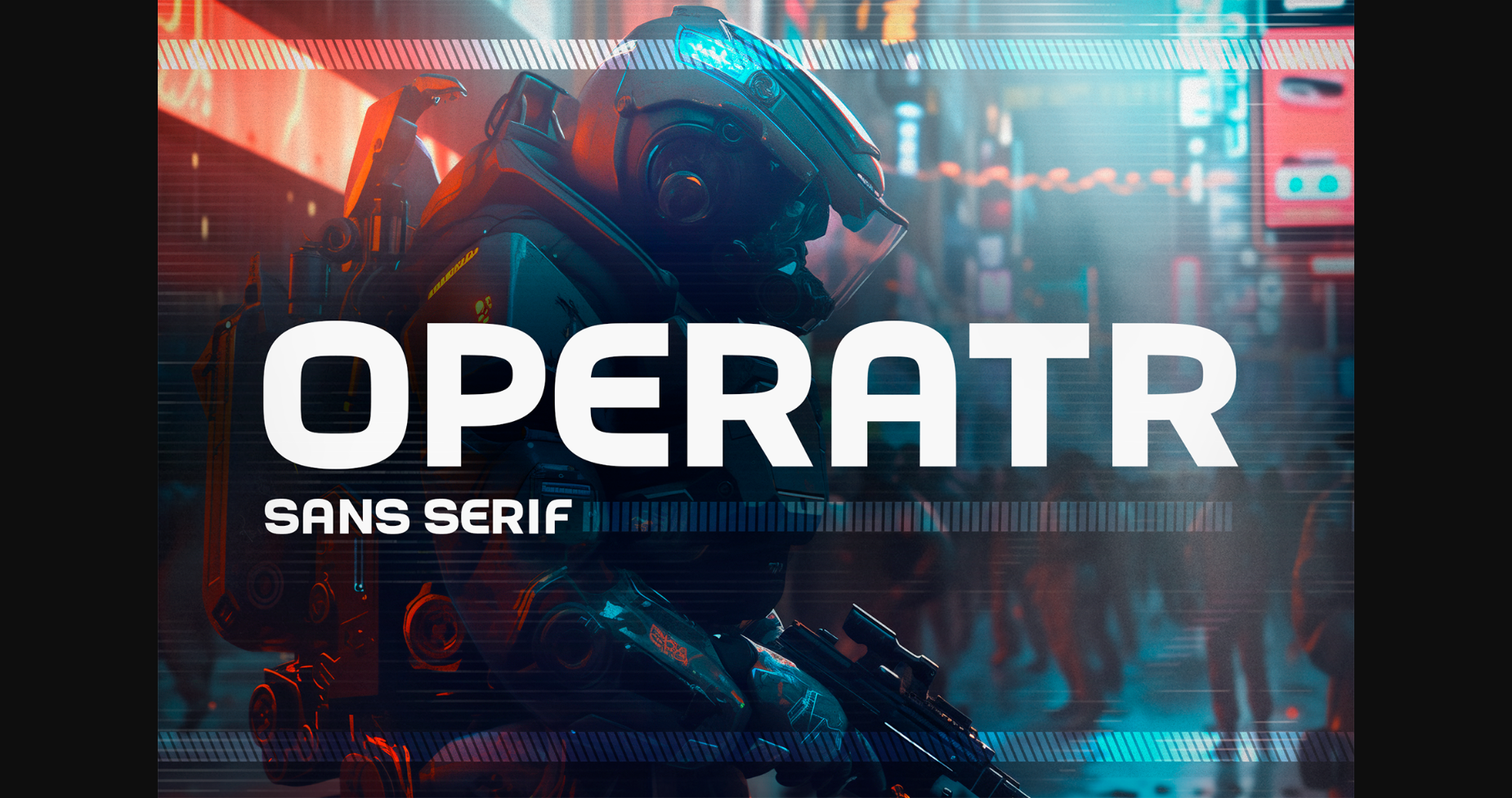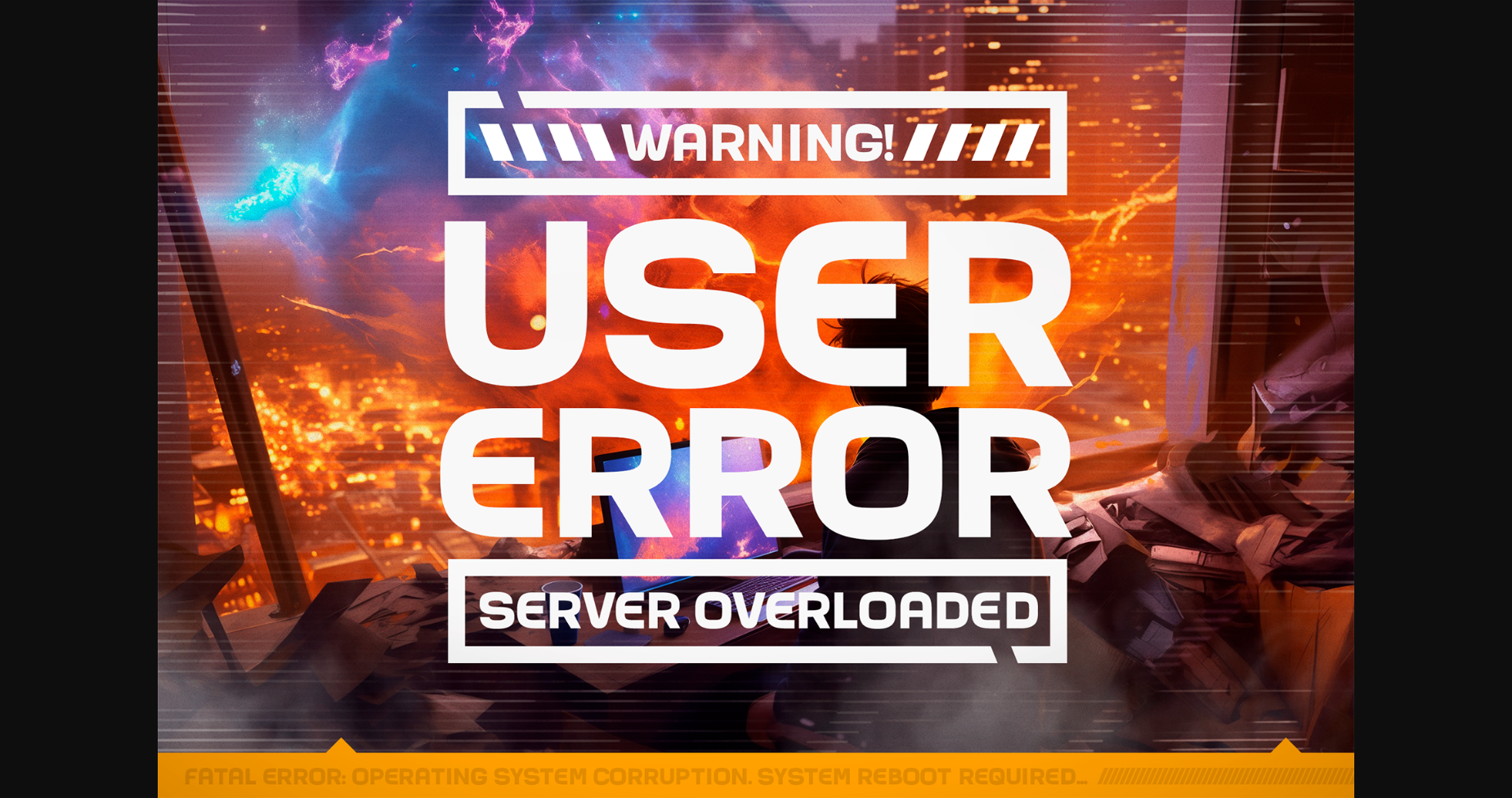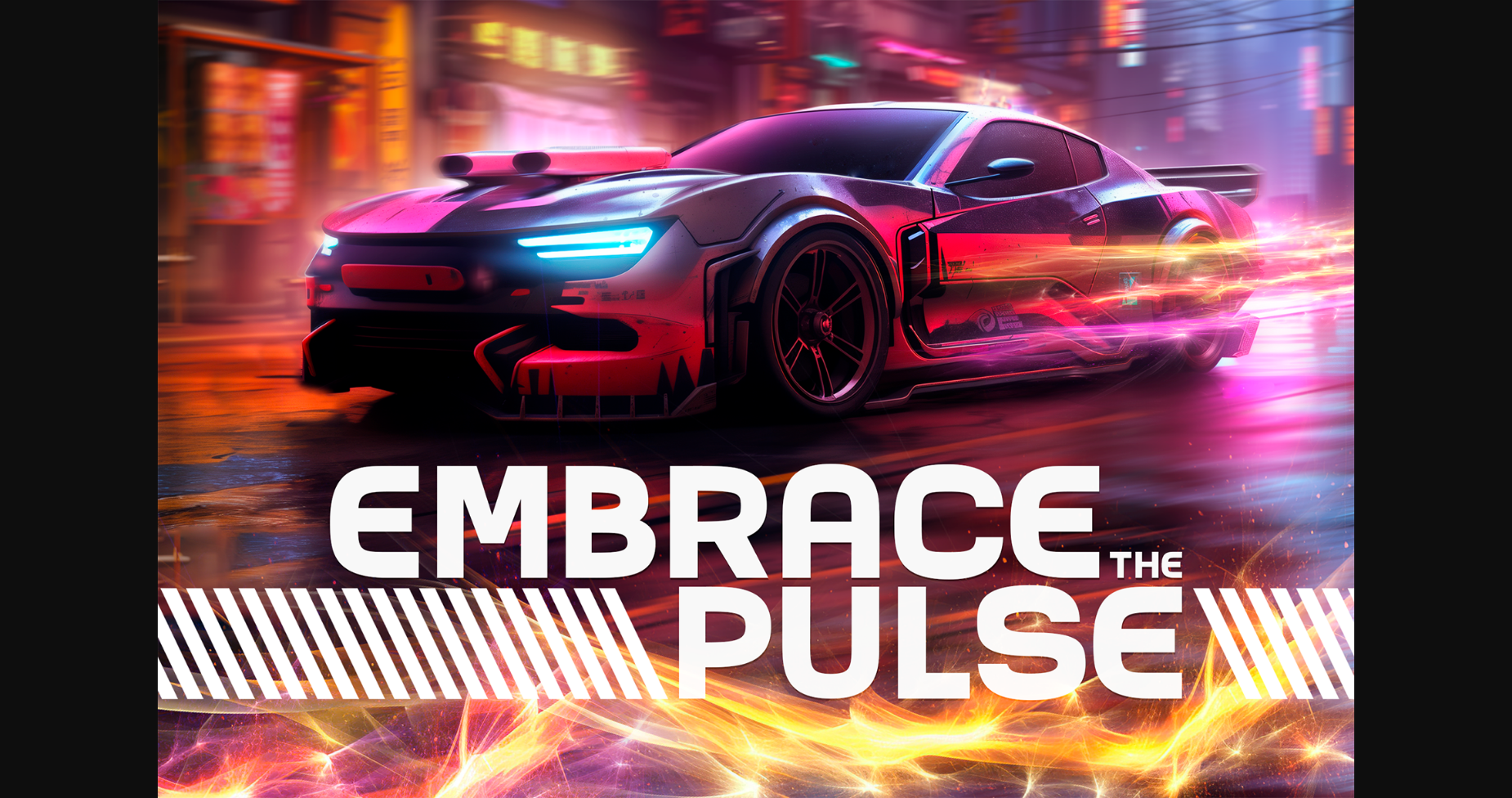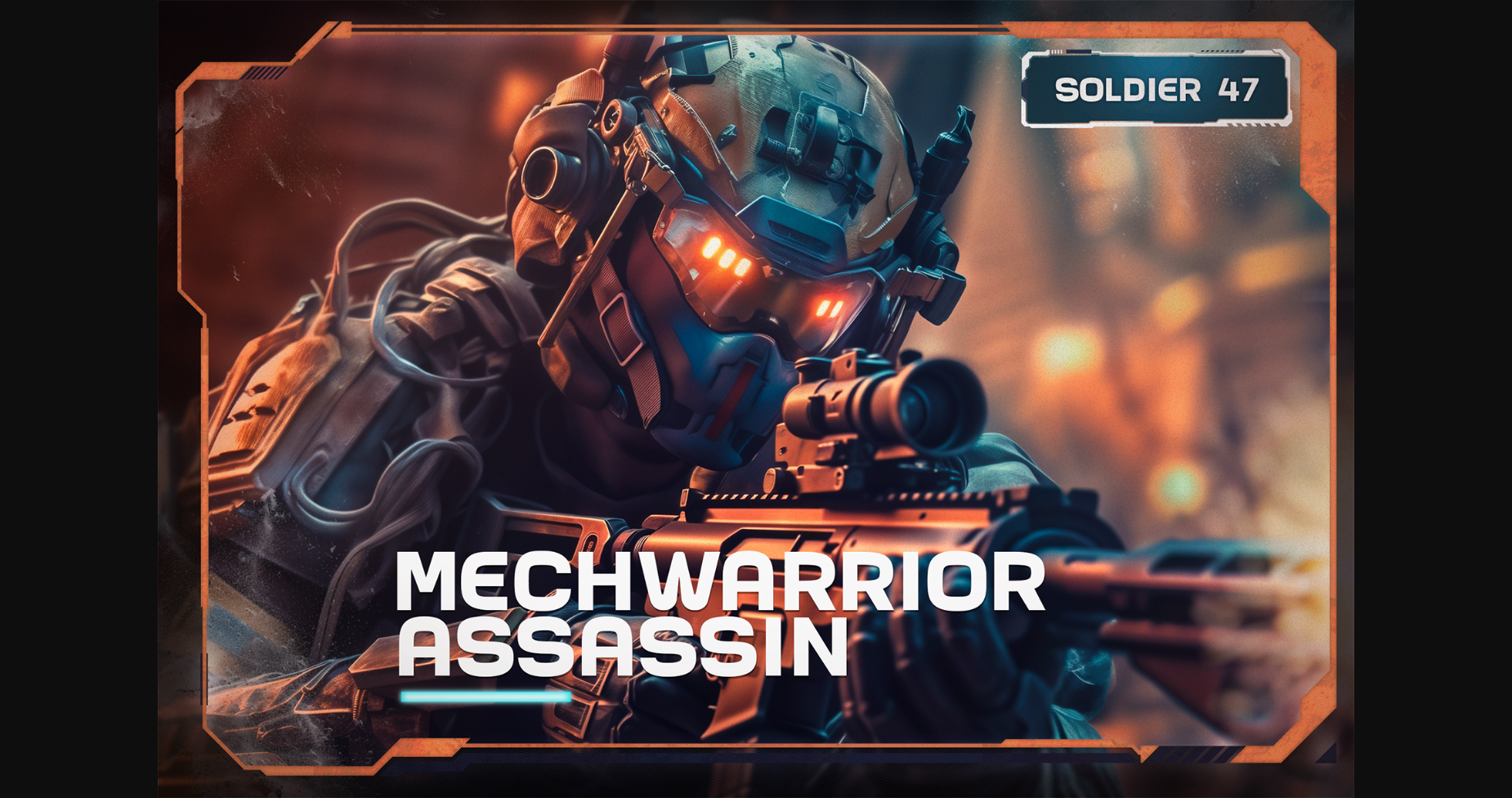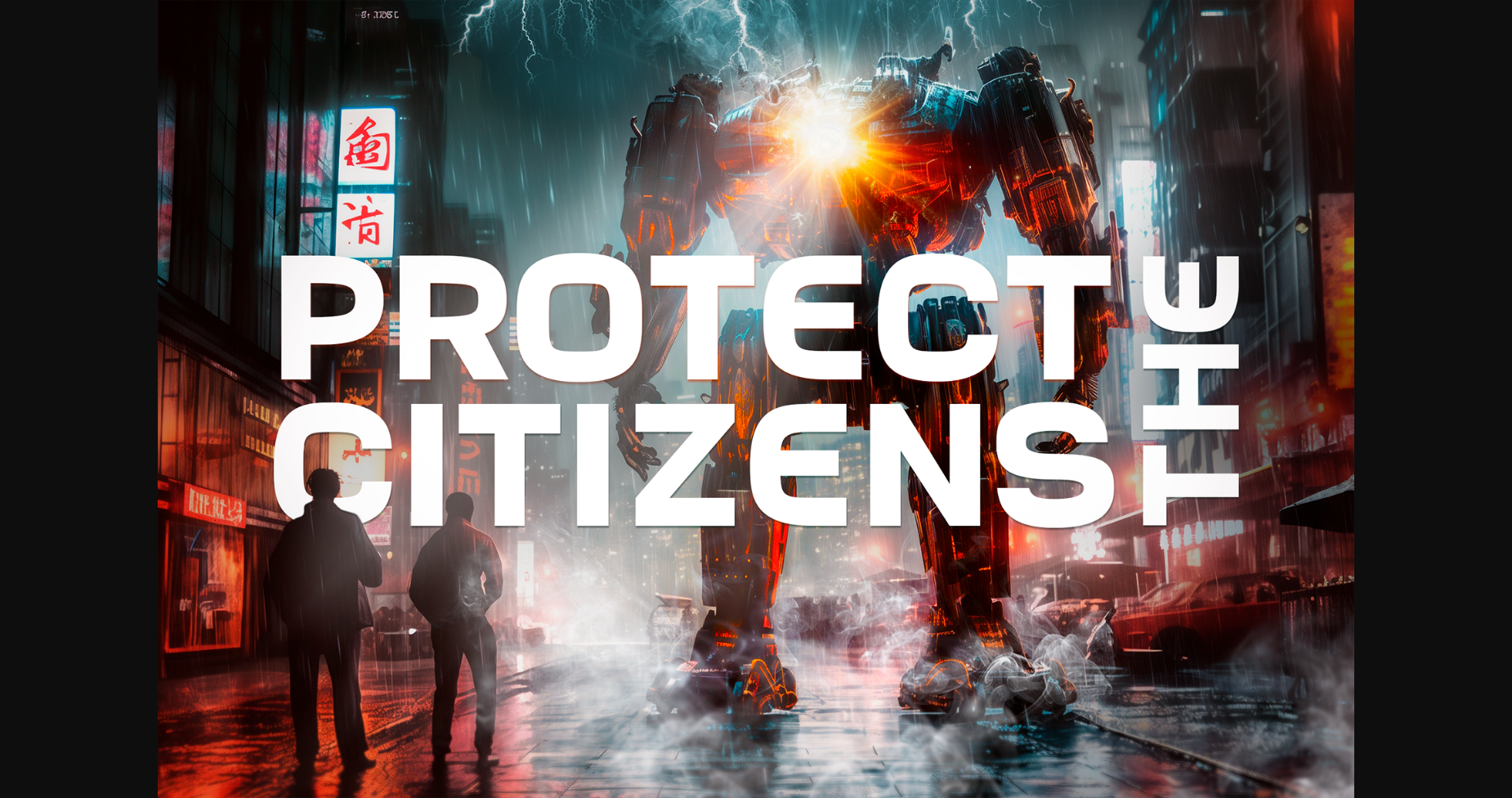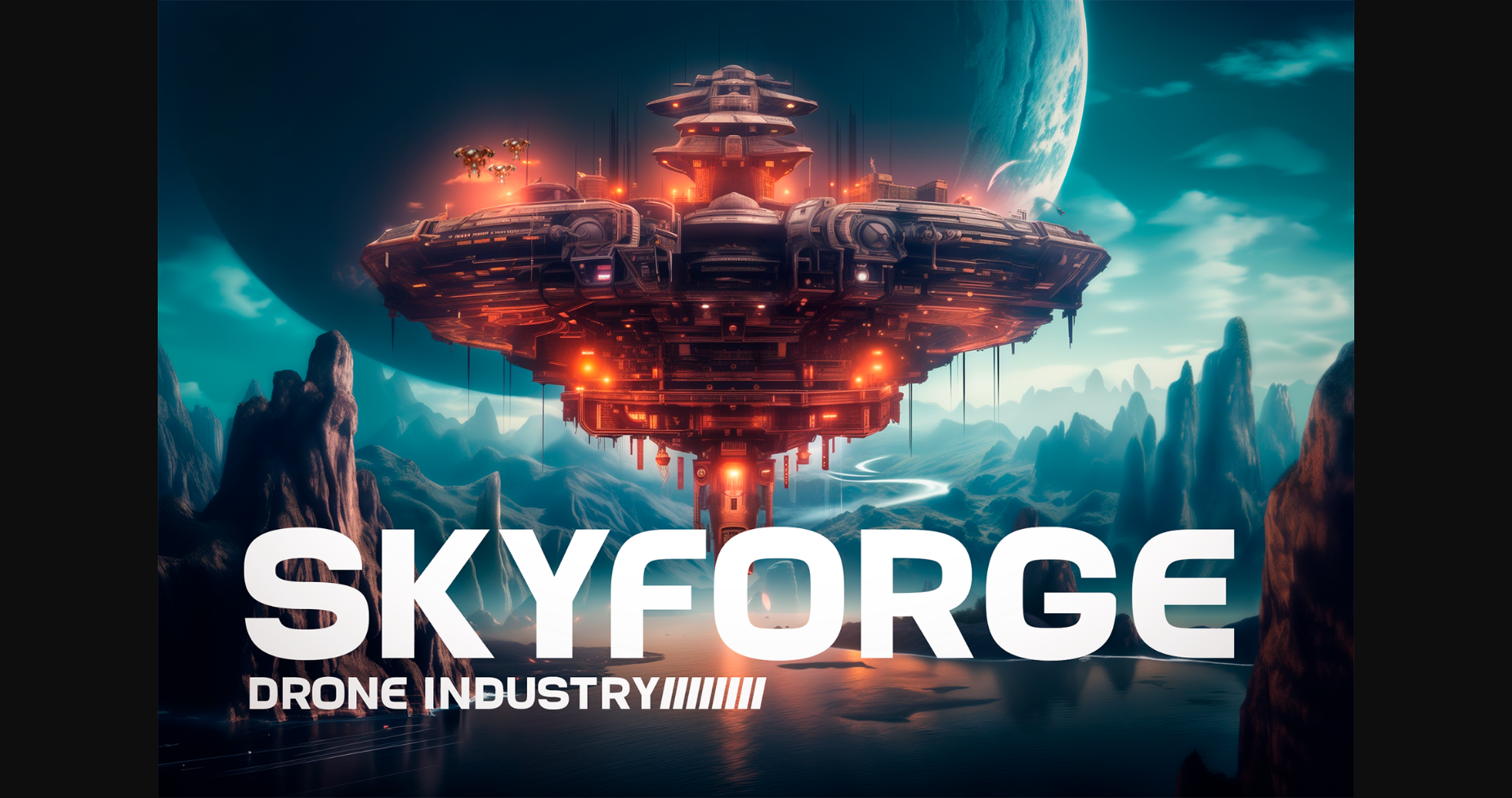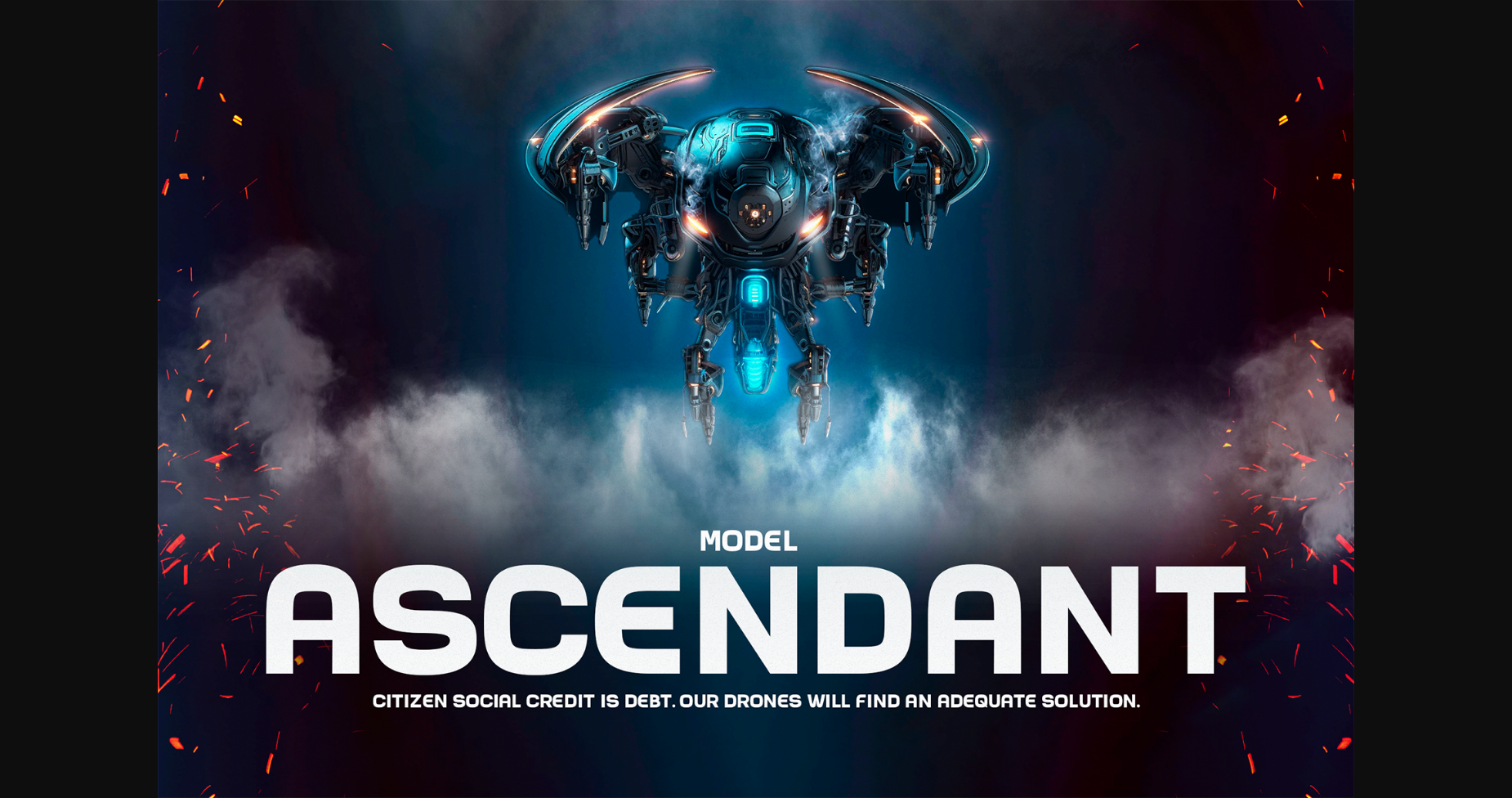
Operatr Font
About Operatr Font
Operatr is a bold, all caps and sturdy sans serif font. It was designed specifically for games, titles and headlines. Use Operatr to bring a new level of impact and intensity to your designs!